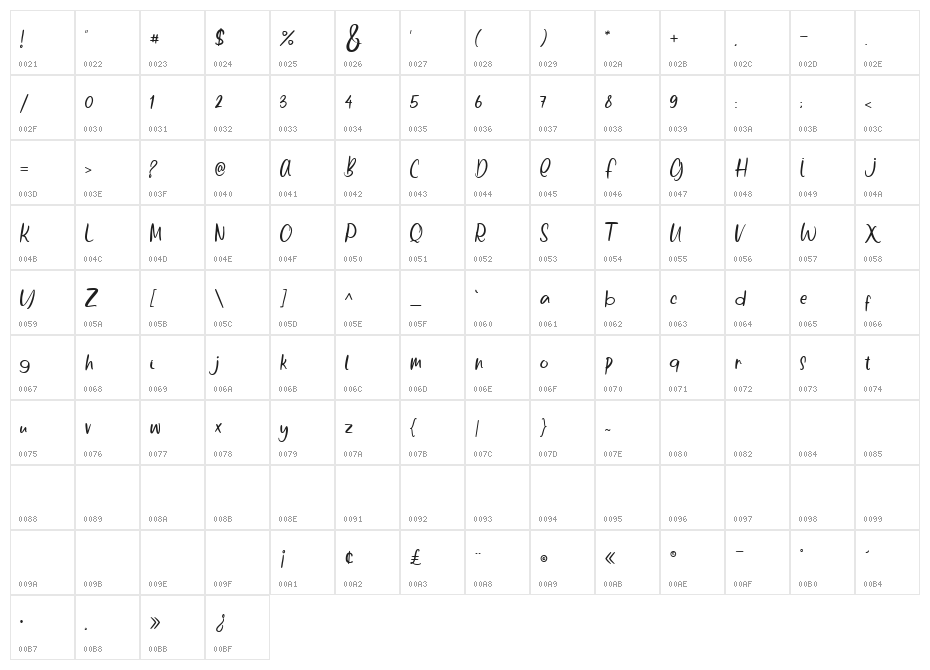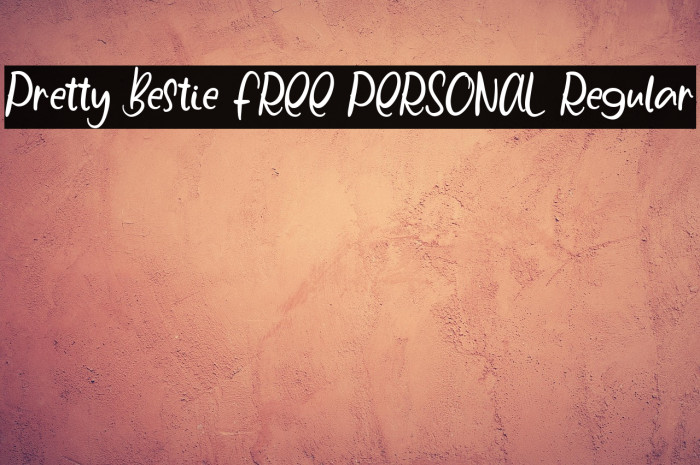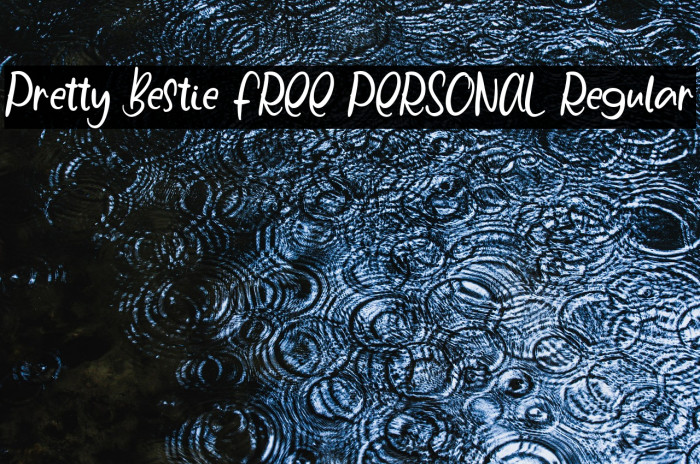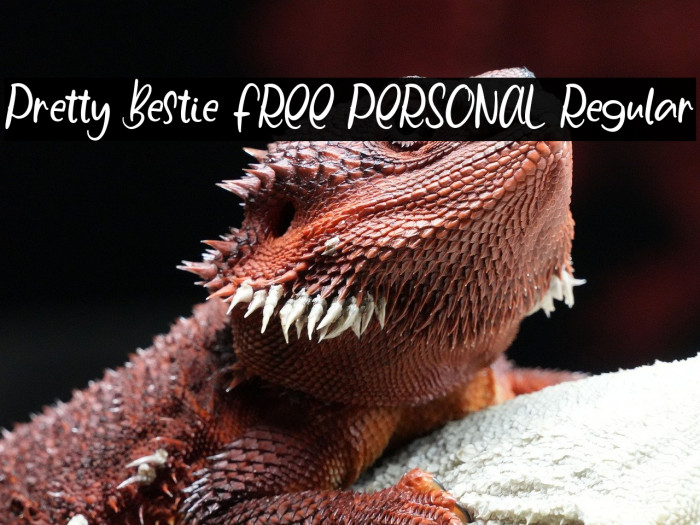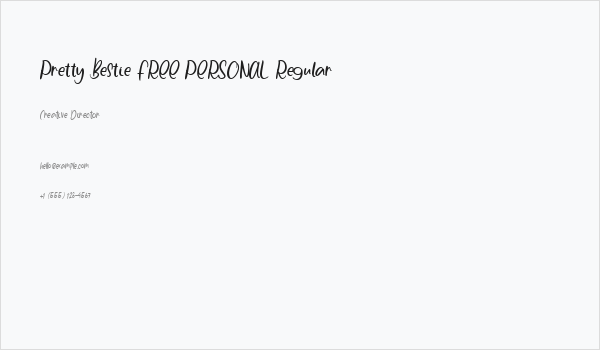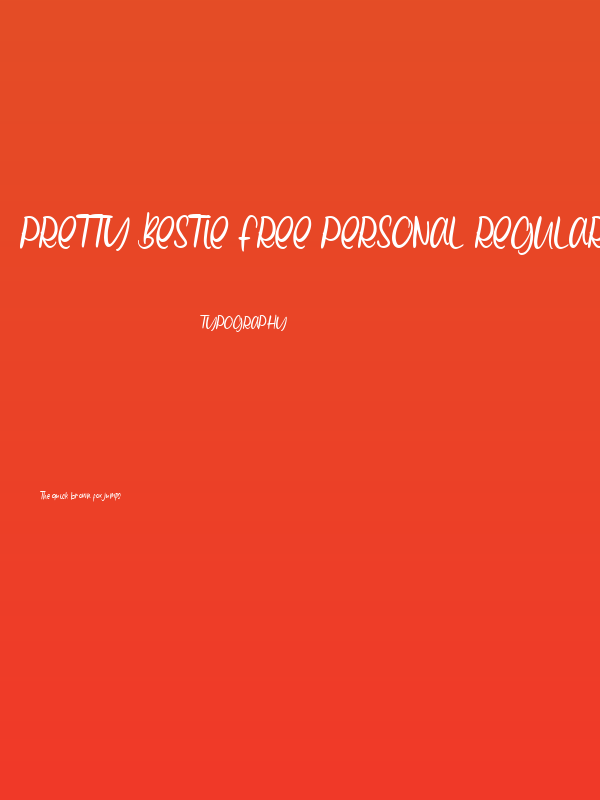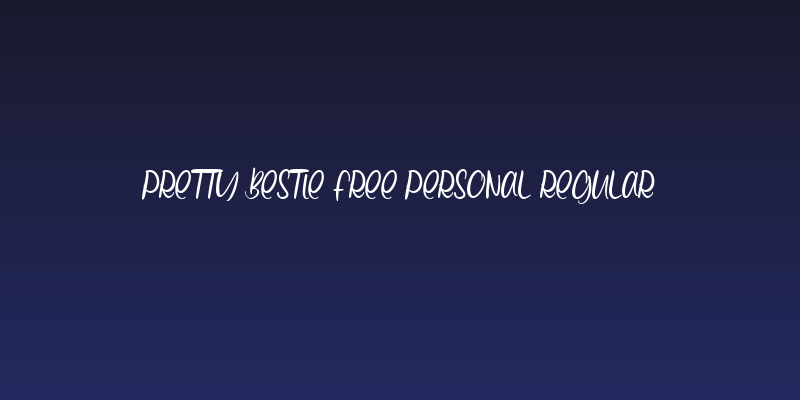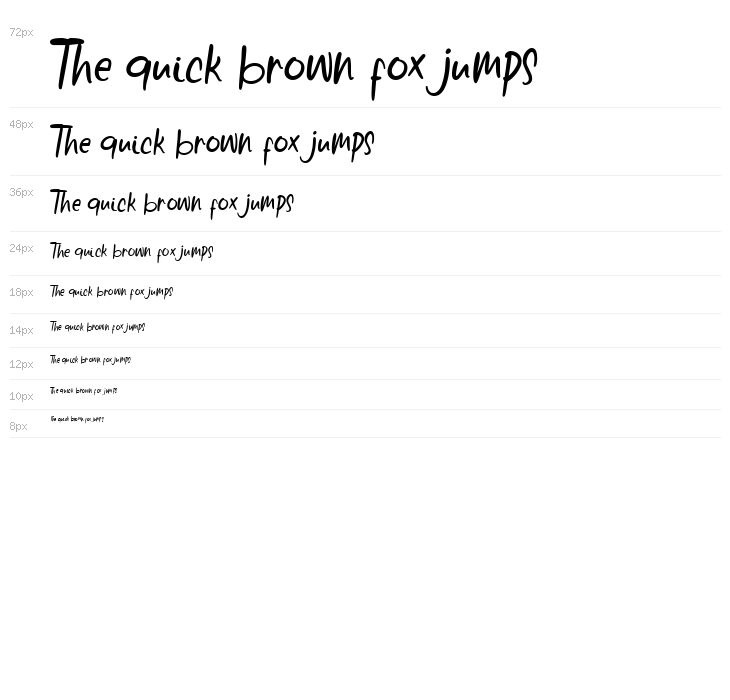
Pretty Bestie FREE PERSONAL Regular Font
Pretty Bestie FREE PERSONAL Regular Description
This font features a playful and casual handwritten style, characterized by its smooth, flowing curves and slightly irregular letterforms. The uppercase letters are bold and dynamic, while the lowercase letters maintain a consistent, friendly appearance. The numerals are well-integrated, matching the whimsical feel of the alphabet. Special characters are included, adding versatility for various uses. The overall design exudes a sense of warmth and approachability, making it ideal for projects that require a personal touch.
| Proposed Projects | Ideal for greeting cards, invitations, personal branding, and social media graphics. |